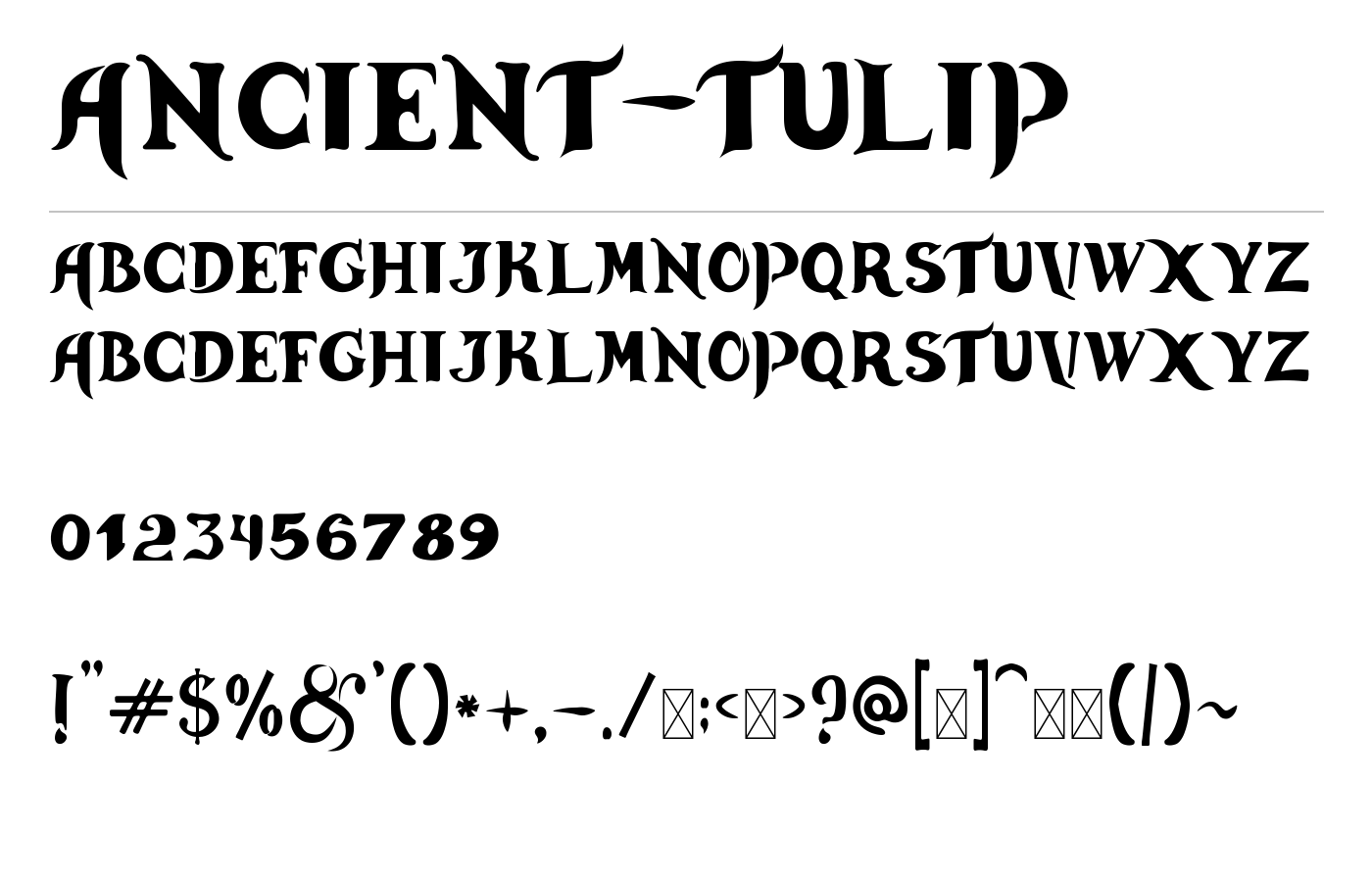
Ancient-Tulip is a decorative serif font with a bold, stylized presence that evokes a vintage or fantasy feel. Its sharp, flared serifs and unique character shapes give it a playful yet elegant personality, making it perfect for branding, headlines, and designs seeking an old-world charm or artistic flair. This font works well in logos, posters, and themed projects where a distinctive, eye-catching typeface is needed.
Ancient-Tulip Font
About Ancient-Tulip Font
| Font family | Ancient-Tulip Font |
| Designer | Elchin Panahov |